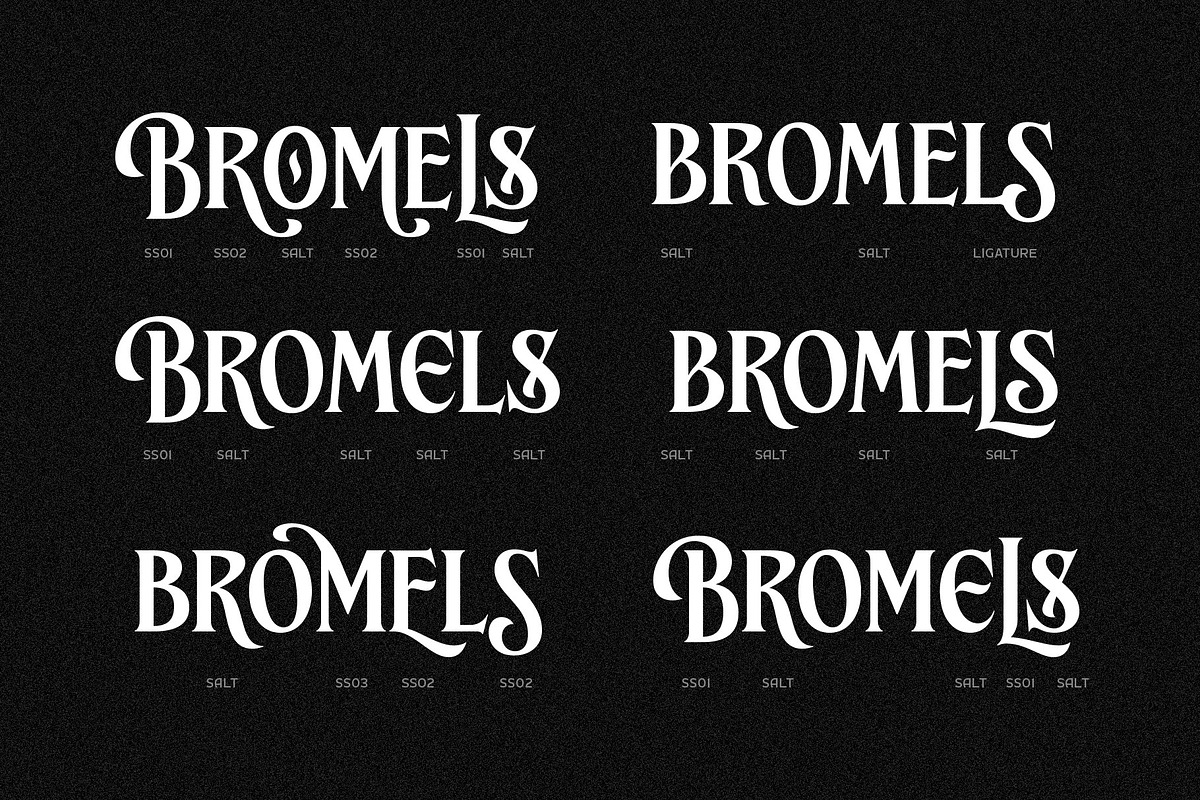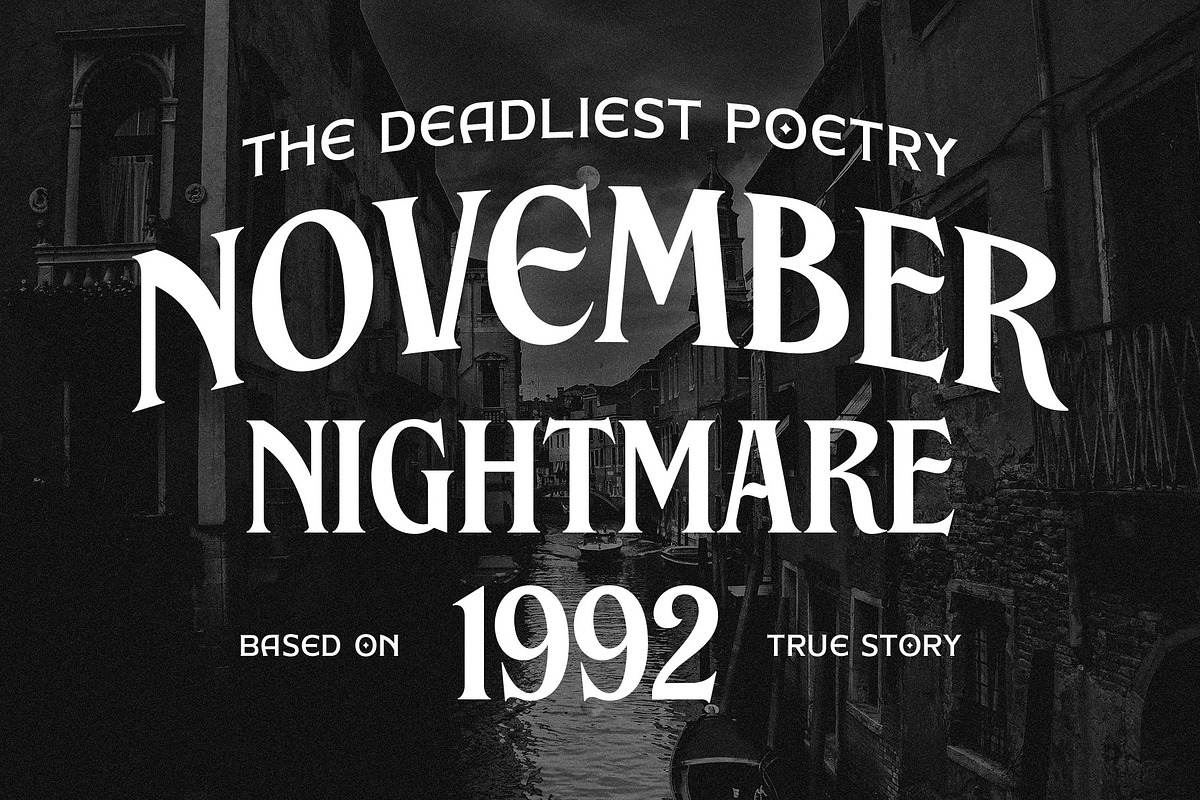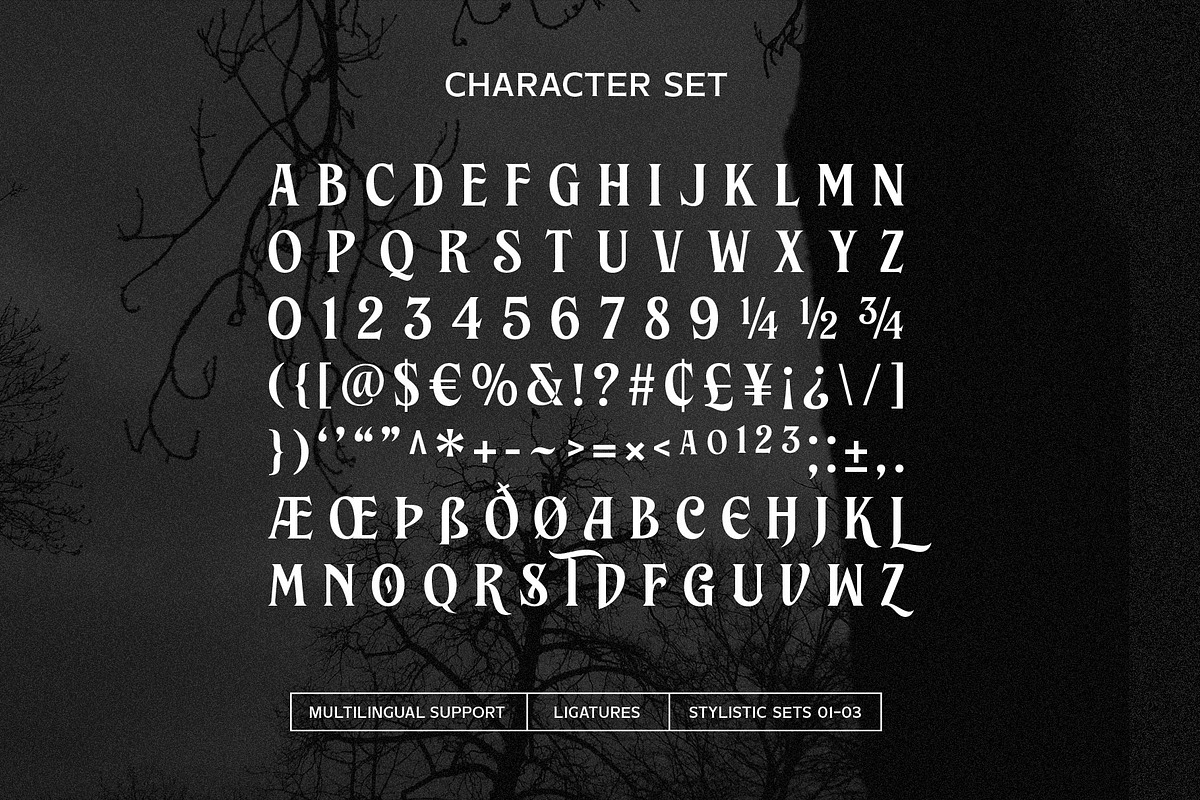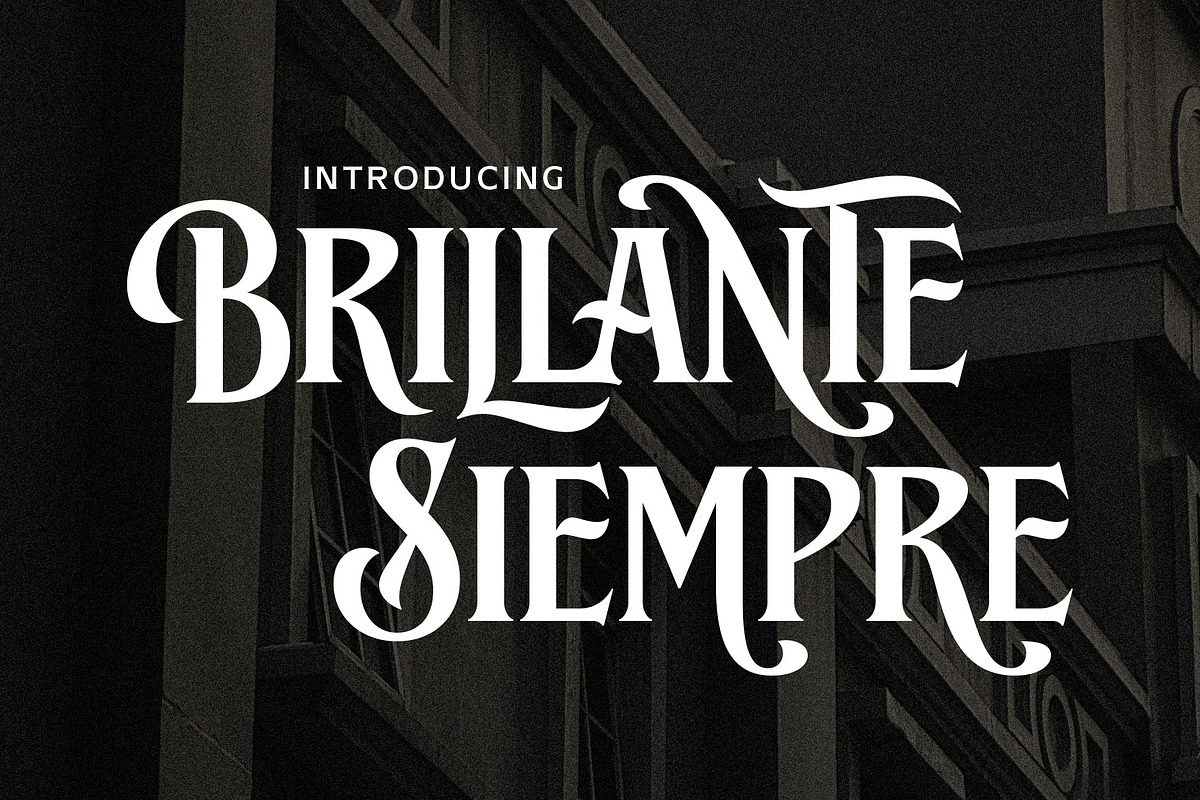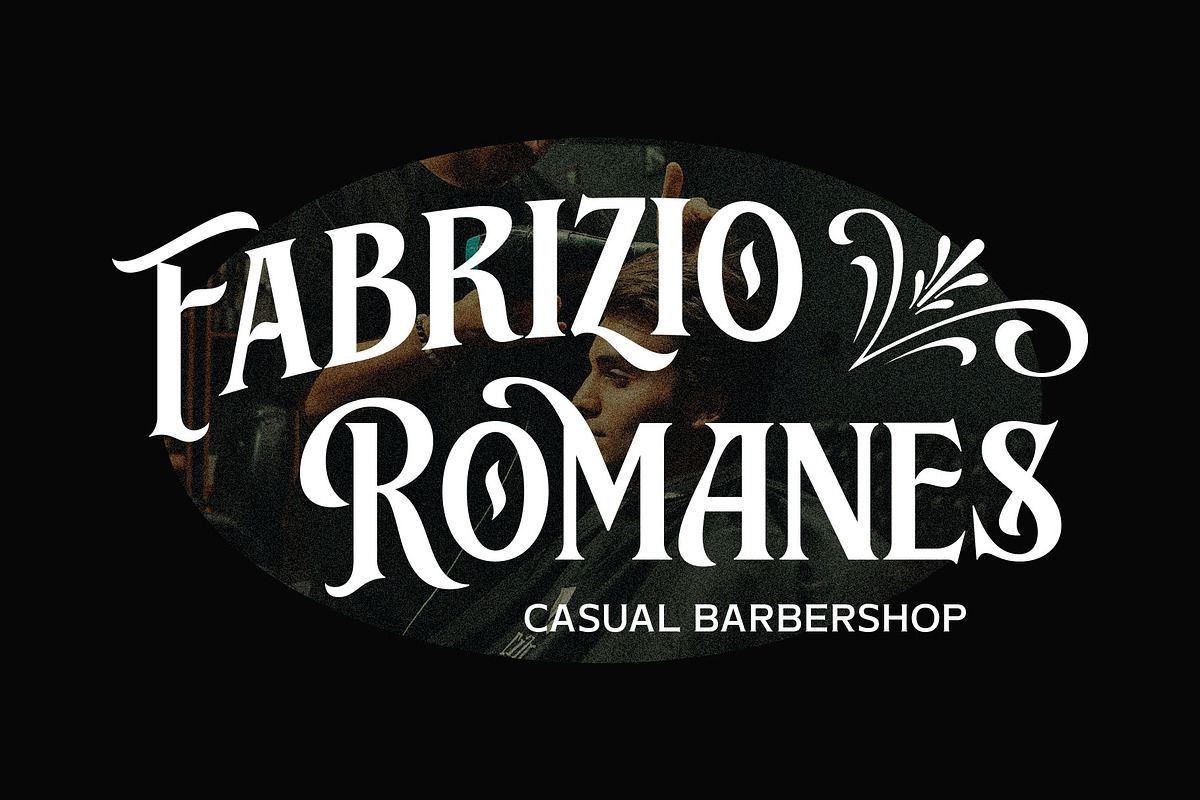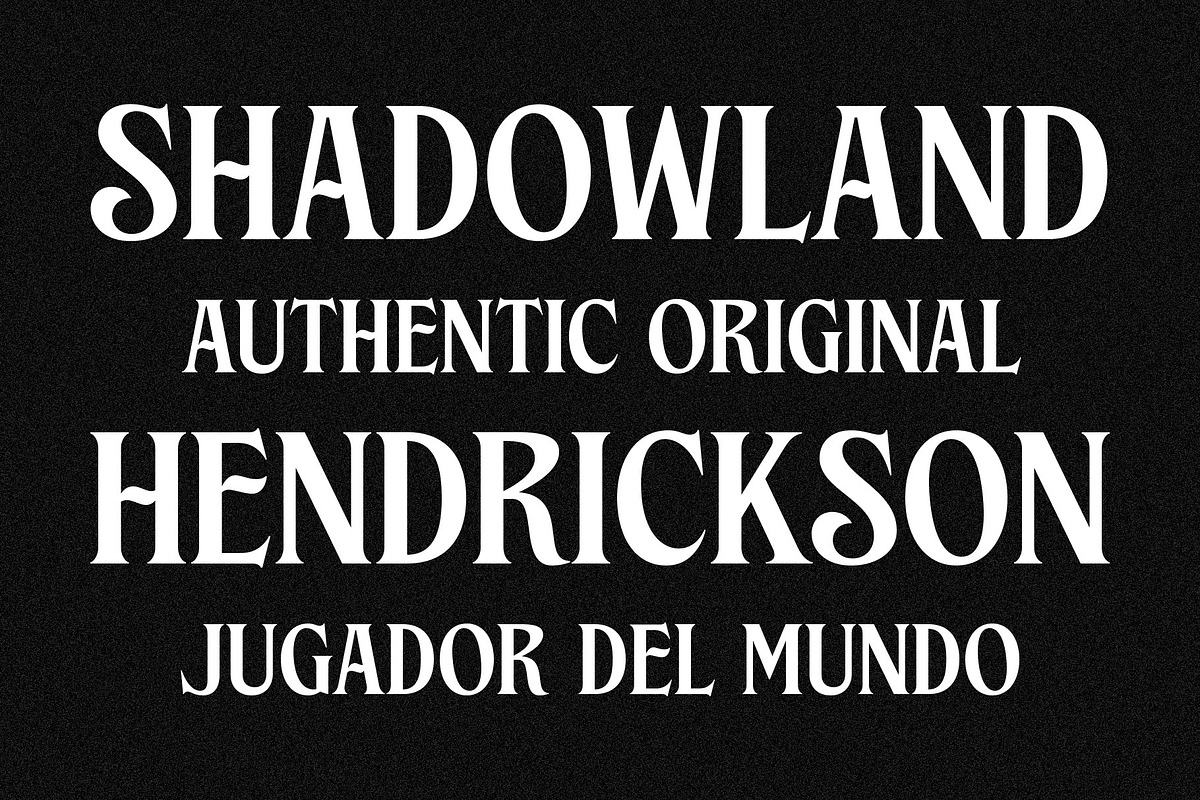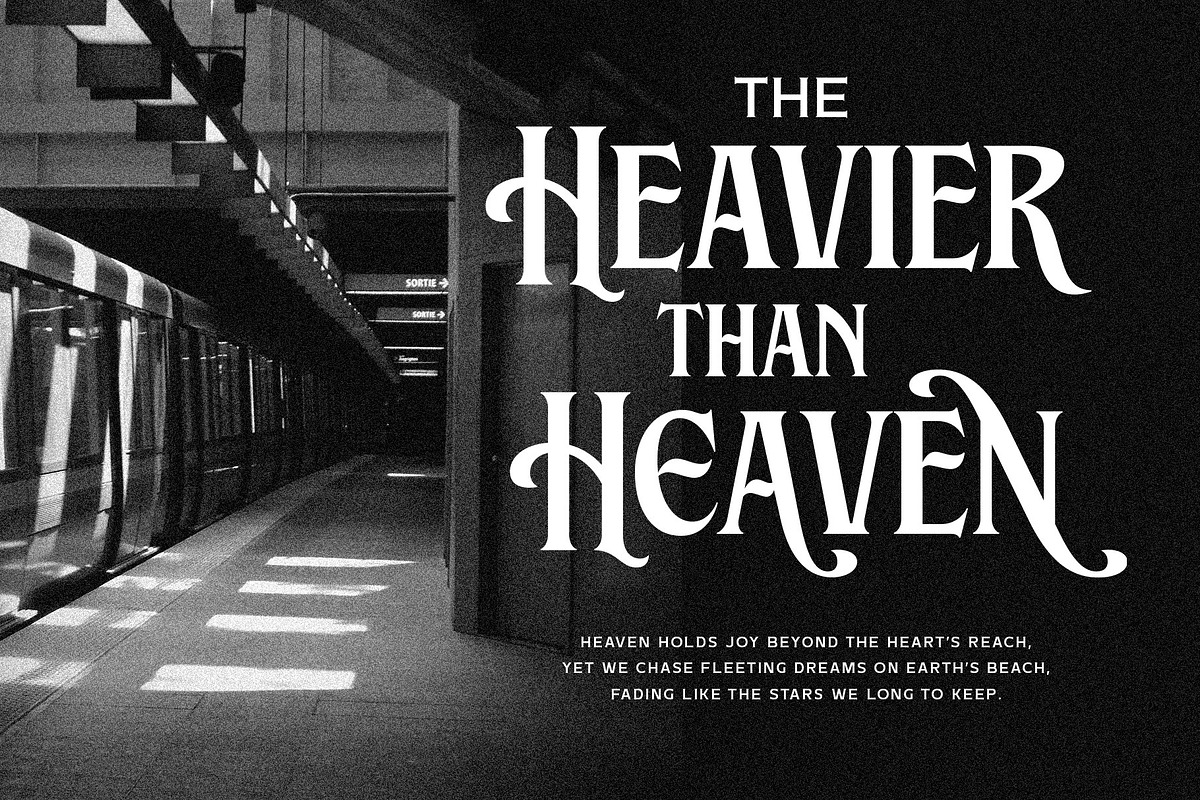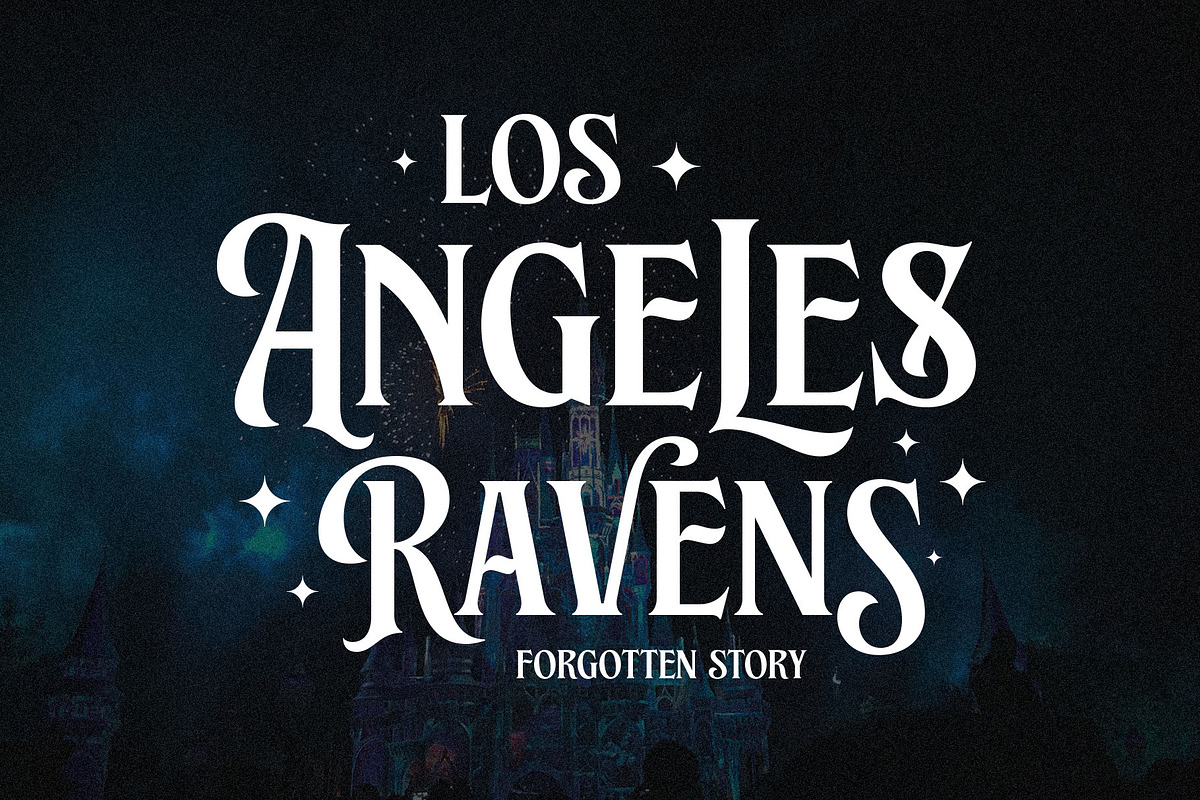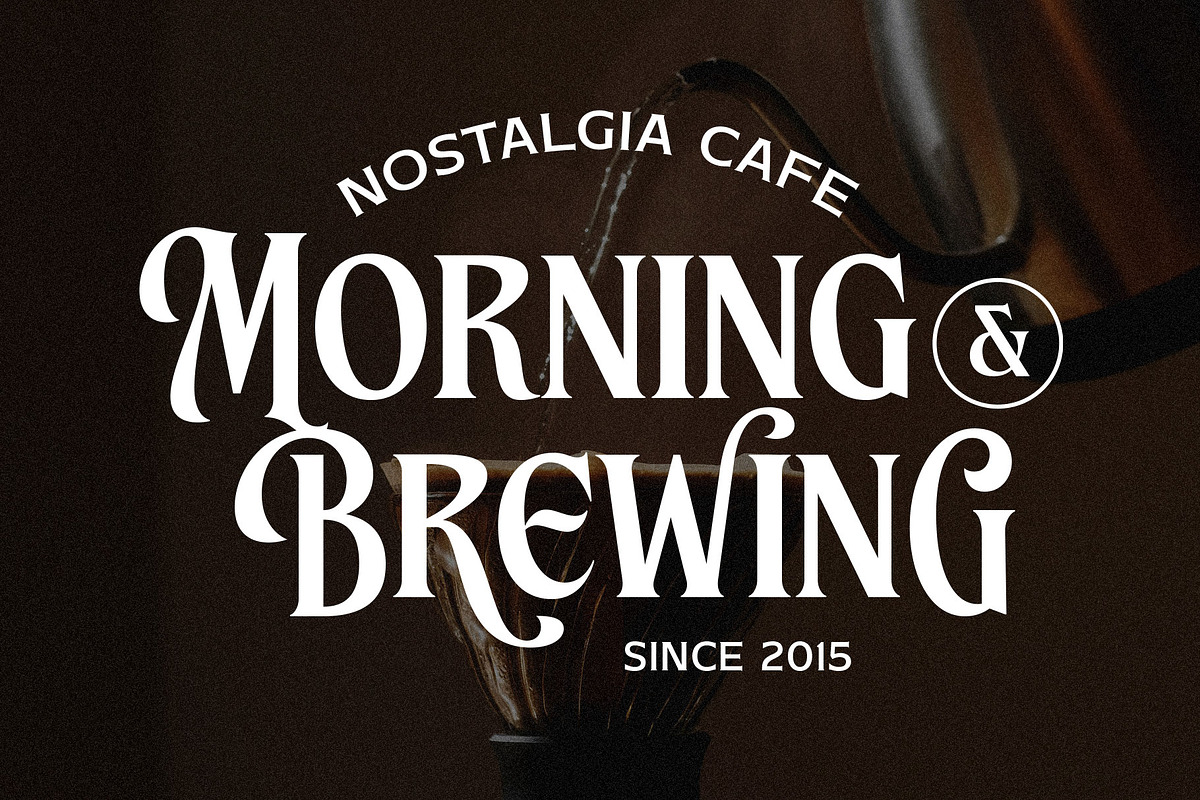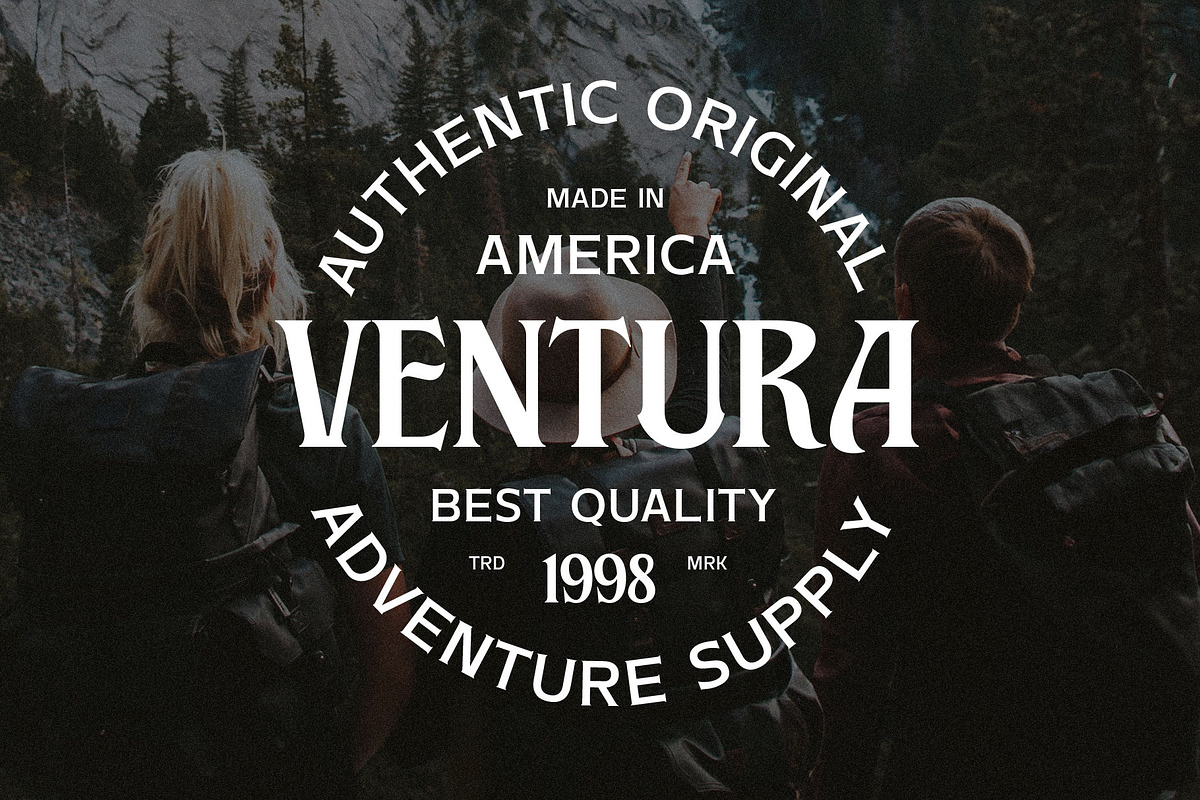
Brillante Siempre - Fancy Serif
Brillante Siempre is a vintage-inspired serif font that blends classic elegance with modern sophistication. Designed with beautiful ornamental shapes, it brings a soft, romantic, and timeless feel to any project. Perfect for logos, headlines, posters, magazines, labels, and invitations, Brillante Siempre makes your designs stand out with effortless charm.
With powerful OpenType features, you can explore a variety of styles and personalize your work with ease. Whether you're creating for a brand, signage, titlevent, or publication, Brillante Siempre adds a refined and unforgettable touch.
Fonts featured :
- All-capitals characters
- Numbers & symbols
- Stylistic alternates
- Stylistic sets 01-03
Bring timeless beauty and bold character to your design with Brillante Siempre.